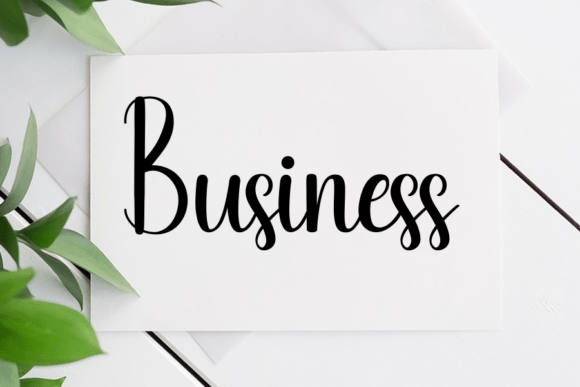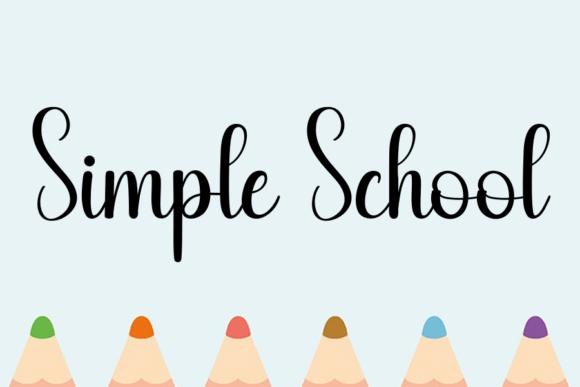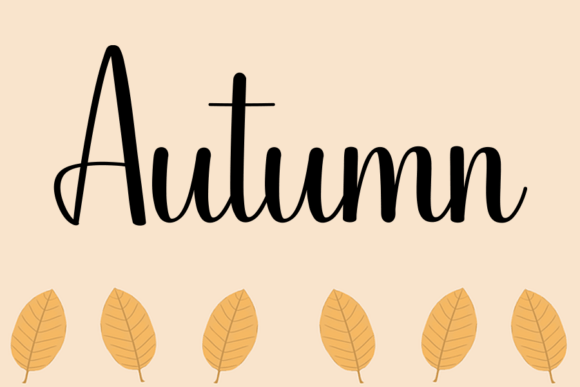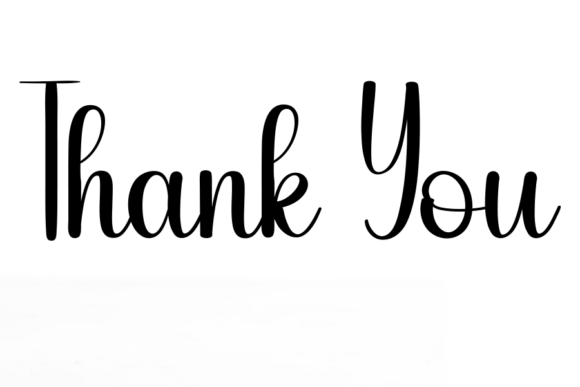
Introducing Blinking Font: Elegance in Every Stroke
In the world of typography, few fonts capture the essence of sophisticated, natural penmanship as gracefully as the Blinking Font. This beautiful, handwritten typeface is a masterpiece of fluidity and elegance, making it an ideal choice for designers and crafters looking to add a touch of luxury and romance to their projects. With its elongated, sweeping swashes and delicate connections, Blinking Font is perfect for creating romantic wedding invitations, high-end branding, and elegant social media layouts.
The Characteristics of Blinking Font
Blinking Font is distinguished by its light, airy rhythm, which provides a “new style” of luxury that feels both personal and professional. The font’s design is characterized by:
- Elongated Swashes: The sweeping swashes in Blinking Font add a dynamic touch to any text, making it perfect for headings, titles, and emphasis.
- Delicate Connections: The delicate connections between letters create a sense of fluidity and natural flow, giving the font a handwritten feel.
- PUA-Encoding: Blinking Font is PUA-encoded, allowing effortless access to all glyphs, swashes, and alternate characters. This makes it easy to customize and adapt the font to your specific needs.
Uses of Blinking Font
The versatility of Blinking Font makes it suitable for a wide range of applications, including:
- Wedding Invitations: The romantic and elegant nature of Blinking Font makes it perfect for wedding invitations, save-the-date cards, and other wedding-related stationery.
- High-End Branding: The luxurious feel of Blinking Font makes it an excellent choice for high-end branding, including logos, business cards, and letterheads.
- Elegant Social Media Layouts: Blinking Font can add a touch of sophistication to social media layouts, making it perfect for fashion, beauty, and lifestyle brands.
- Boutique Logos: The unique and elegant design of Blinking Font makes it ideal for boutique logos, adding a touch of personality and charm to your brand.
- Greeting Cards: Blinking Font is perfect for creating heartfelt greeting cards for special occasions, such as birthdays, anniversaries, and holidays.
Why Choose Blinking Font?
With so many fonts available, why choose Blinking Font? Here are a few reasons why designers and crafters love this beautiful typeface:
- Timeless Beauty: Blinking Font has a timeless beauty that never goes out of style, making it a great investment for designers and crafters.
- Effortless Charm: The font’s elegant design and fluid connections add an effortless charm to every word you write.
- Versatility: Blinking Font is versatile and can be used for a wide range of applications, from wedding invitations to high-end branding.
- Easy to Use: The PUA-encoding of Blinking Font makes it easy to access all glyphs, swashes, and alternate characters, allowing you to customize the font to your needs.
Tips for Using Blinking Font
To get the most out of Blinking Font, here are a few tips:
- Use it Sparingly: Blinking Font is a statement font, so use it sparingly to add emphasis and create visual interest.
- Experiment with Swashes: The elongated swashes in Blinking Font can add a dynamic touch to your text. Experiment with different swash combinations to create unique effects.
- Pair it with Other Fonts: Blinking Font can be paired with other fonts to create a unique and visually appealing combination. Try pairing it with a sans-serif font for a modern contrast.
Blinking Font is a beautiful, handwritten typeface that captures the essence of sophisticated, natural penmanship. With its elongated swashes, delicate connections, and PUA-encoding, this font is perfect for designers and crafters looking to add a touch of luxury and romance to their projects. Whether you’re creating wedding invitations, high-end branding, or elegant social media layouts, Blinking Font is a great choice. Its timeless beauty, effortless charm, and versatility make it a valuable addition to any designer’s font collection.